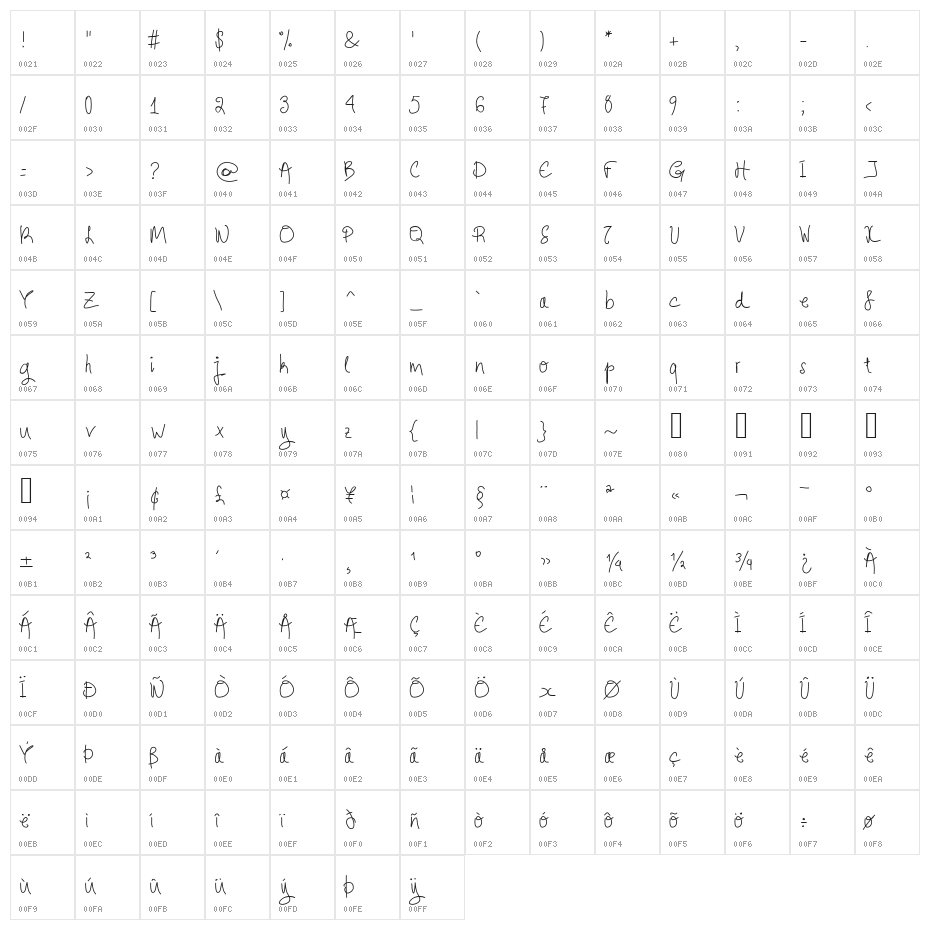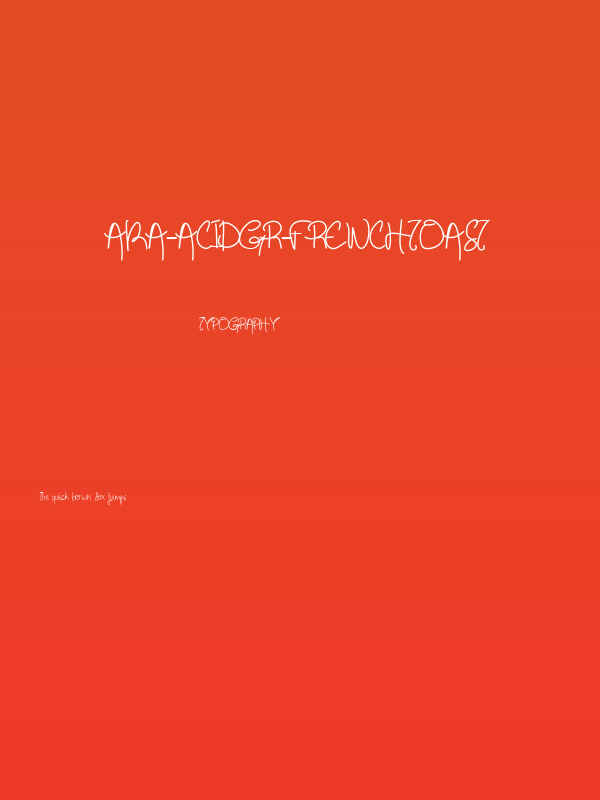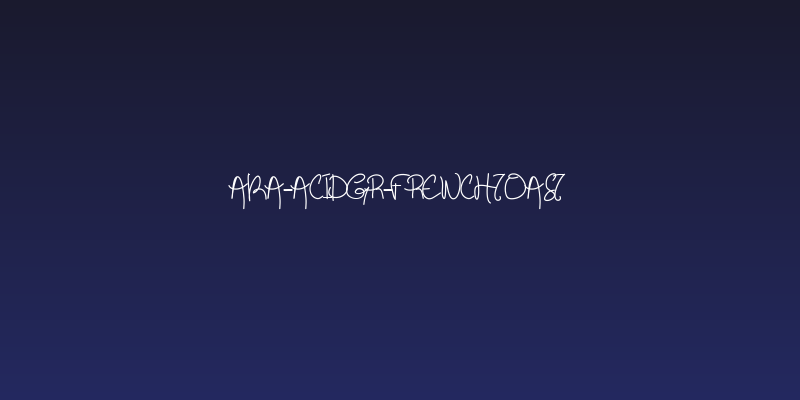
Aka-AcidGR-FrenchToast Font
Aka-AcidGR-FrenchToast Description
This font features a playful and whimsical handwritten style, characterized by its irregular and dynamic strokes. The letters are free-flowing with a casual, artistic flair, making it feel personal and expressive. The uppercase and lowercase letters maintain a consistent style, with some letters featuring unique loops and curves that add to the font's charm. The numbers and special characters are equally stylized, ensuring a cohesive look across all glyphs. This font exudes a sense of creativity and spontaneity, perfect for projects that require a touch of personality and warmth.
| Proposed Projects | Ideal for greeting cards, invitations, personal branding, creative projects, and social media graphics. |